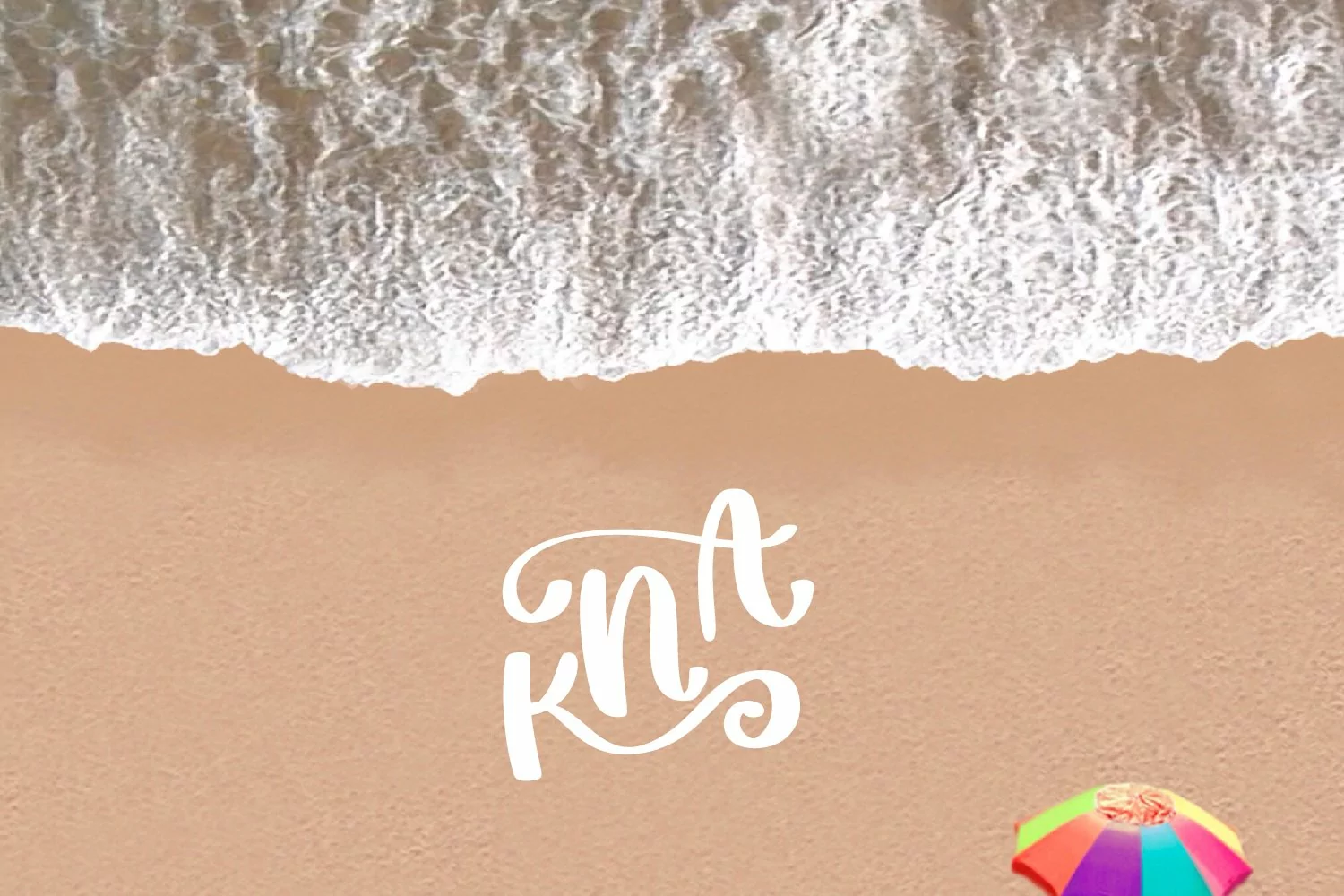
Three Letter Monogram Font
Since this is a monogram font - only A-Z are offered
To get middle letter, you'll need to use an alternative on the lower case -
So each letter written will be in this format - Aaa with the middle letter being an alternative.